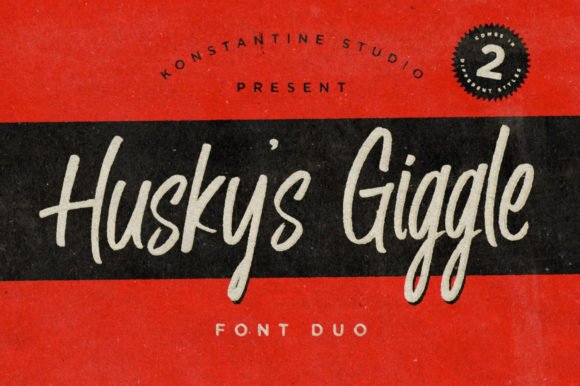
Discover the Delight of Husky’s Giggle Font
Have you ever stumbled upon a font that makes you smile? For designers, there’s nothing quite like the thrill of finding the perfect typeface to bring a project to life. It’s that moment of serendipity when the words flow effortlessly onto the page, and you know you’ve found something special. For me, that moment came when I discovered Husky’s Giggle Font – an elegant and dainty handwritten font that features sweet and delicate swashes.
Husky’s Giggle Font is more than just a pretty face; it’s a versatile tool that can elevate any design project. From letterheads and titles to stationery, this font is perfect for adding a touch of whimsy and personality to your work. Whether you’re a seasoned pro or a creative newbie, Husky’s Giggle Font is an invaluable addition to your design arsenal.
Husky’s Giggle Font Key Features
- Font Family: Husky’s Giggle Font is a unique, hand-drawn font designed to evoke a sense of playfulness and fun.
- Character Set: The font includes a comprehensive set of characters, including uppercase and lowercase letters, numerals, punctuation marks, and special characters.
- Unique Characteristics: Husky’s Giggle Font features a distinctive, hand-drawn style with subtle imperfections, giving it a charming and organic feel.
Husky’s Giggle Font Review
Overall, I think Husky’s Giggle Font is a cute and playful addition to any design project. The font’s main charm lies in its whimsical nature, making it perfect for creating eye-catching titles and headings. ✨ The font’s use of rounded edges and loose connections between letters adds a sense of friendliness, which is ideal for child-friendly content or humorous articles.
One of the font’s strongest features is its versatility. It can be used in a variety of contexts, from digital displays to print materials, without losing its charm. ✨ The font also comes in multiple styles, including regular, bold, and italic, making it easy to incorporate into your design without worrying about compatibility issues.
However, there are some limitations to consider. ⚠️ The font’s rounded edges can sometimes make it difficult to read, particularly at small font sizes. Additionally, the loose connections between letters may lead to some kerning issues if not properly adjusted. ⚠️
- Cute and playful design
- Whimsical nature ideal for child-friendly content or humorous articles
- Multiple styles (regular, bold, italic)
- Compatible with various digital and print materials
In conclusion, Husky’s Giggle Font is a fun and engaging addition to any design project. While it may have some limitations, its versatility and charm make it a great choice for designers looking to add a playful touch to their work.
Husky’s Giggle Font is ideal for:
- Children’s book covers or illustrations.
- Playful marketing materials or social media posts.
- Whimsical event invitations or party decorations.
Alternatives to Husky’s Giggle Font
Husky’s Giggle Font is a unique, hand-drawn font that adds a playful touch to designs. However, there are other alternatives that can achieve a similar effect. Here are a few options:
Great Vibes Font is a modern, script font that conveys a sense of playfulness and friendliness. It’s perfect for designs that require a casual, approachable tone. Compared to Husky’s Giggle Font, Great Vibes Font is more polished and refined, making it suitable for a wider range of applications.
Q: What is the recommended font size and line height for optimal readability with Husky’s Giggle Font?
For optimal readability, we recommend using a font size between 12-24 points and a line height of 1.2-1.5 times the font size. This will help ensure that the text remains clear and easy to read, even at smaller font sizes.